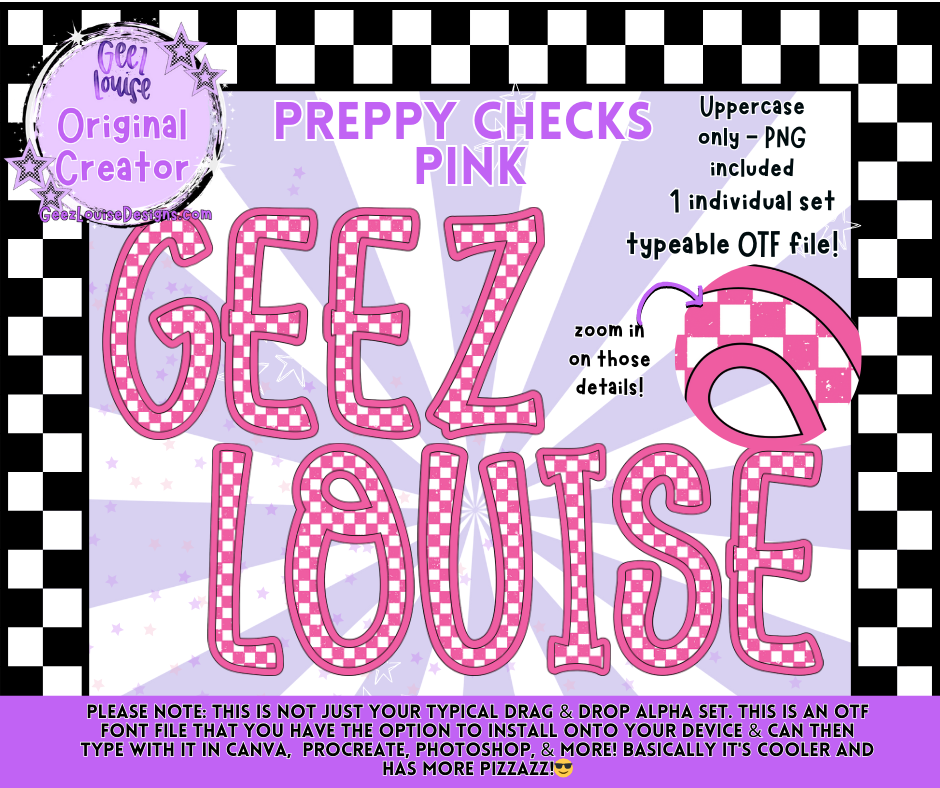
Preppy Checks Pink Alpha Font | OTF & PNG Letters
💖 Add a sweet and playful touch to your designs with the Preppy Checks Pink Alpha Font! 💖
This set features pink and white checkered patterns with a fun preppy style—perfect for girly, trendy, and spring-inspired projects that need a pop of color.
1 Individual Set – a complete set of bold pink checks to enhance your creativity.
On-trend pink preppy checks for bold, playful designs.